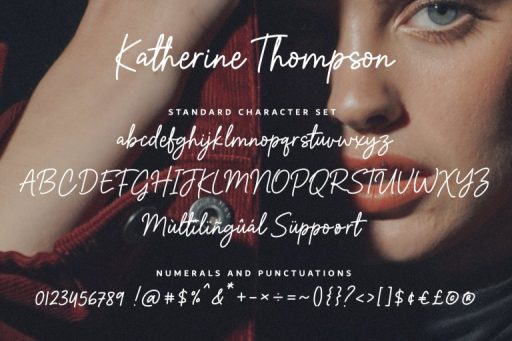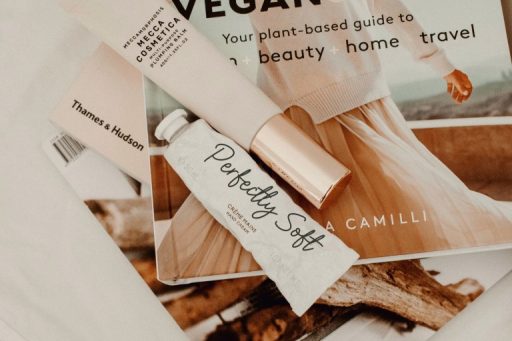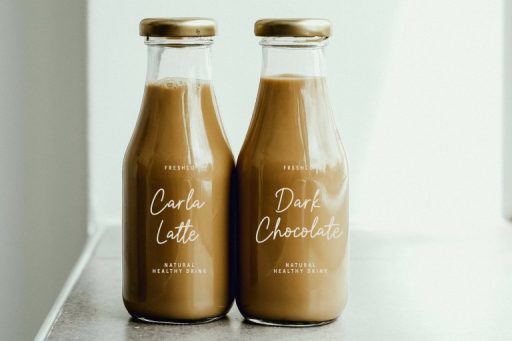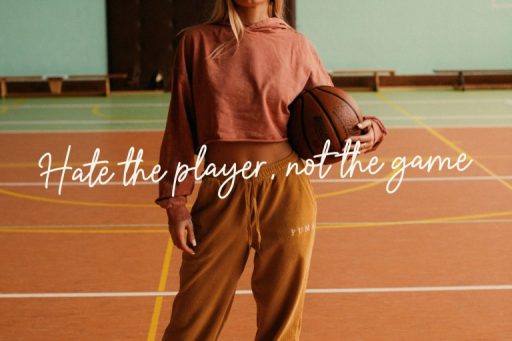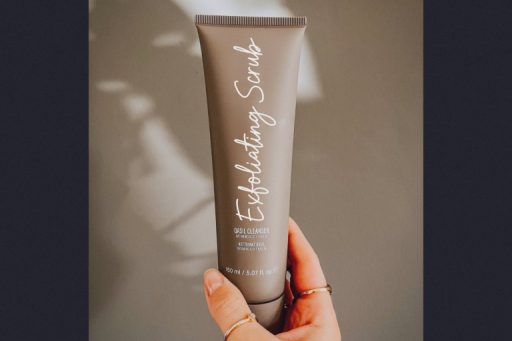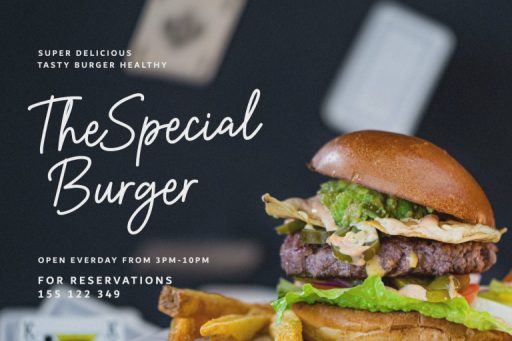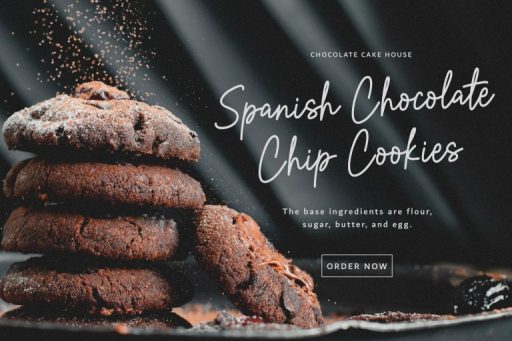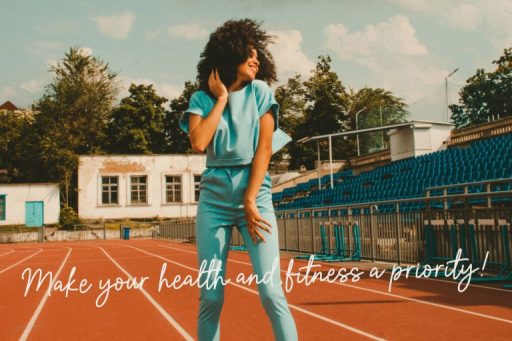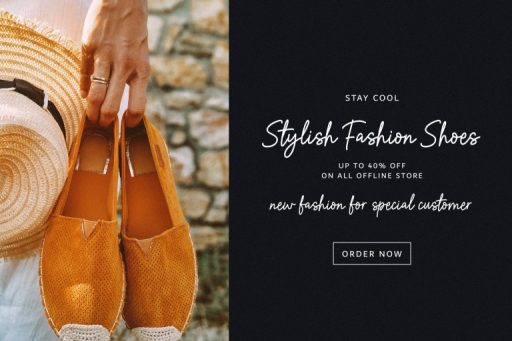
Katherine Thompson
Katherine Thompson – Signature Business Font
Katherine Thompson is a monoline signature script font. Stylish casual charm makes it appear readable, and, ultimately, incredibly versatile for branding, logo, blog headline, photography, watermark, social media posts, advertisements, product designs, labels, stationery, wedding designs, product packaging, special events, or anything that need a stylish casual taste.
• Multilingual Support